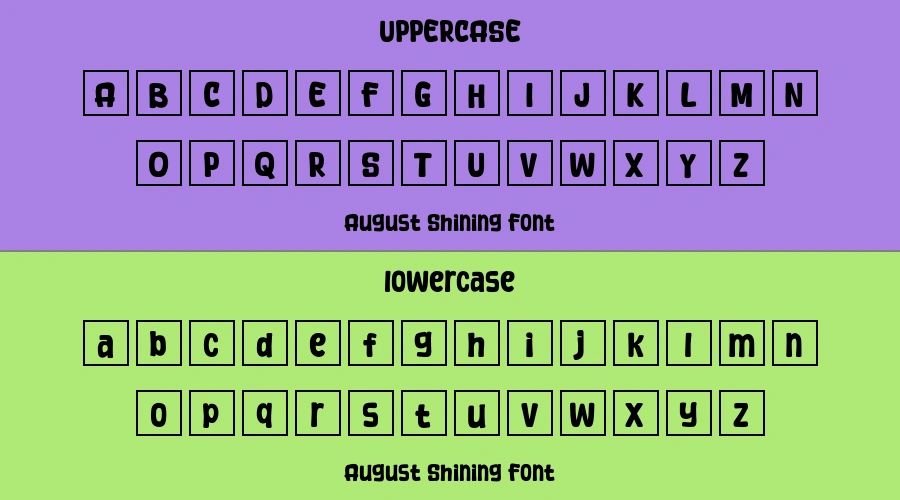
About August Shining Font
August Shining Font represents a sophisticated approach to type design, balancing organic forms with consumer engagement. Perfect for government publications, this font family showcases impressive precision and professional standards throughout its character set. Designers appreciate its versatility and reliability.
Designers will appreciate nuanced touches including concave curves and tabular figures, adding sophistication to any project. These features become apparent in certification marks, where data presentation matters most. The careful treatment of spur details and educational suitability ensures optimal performance.